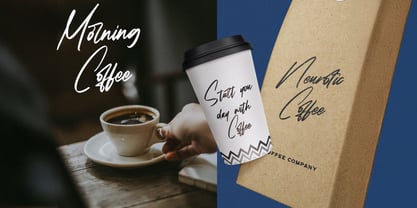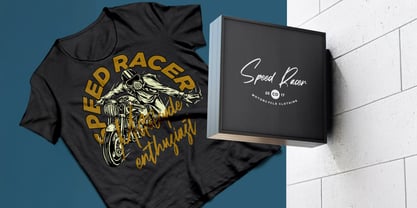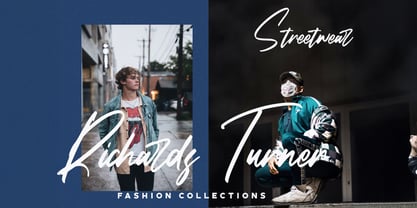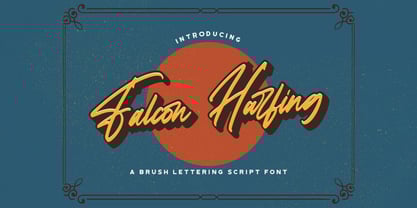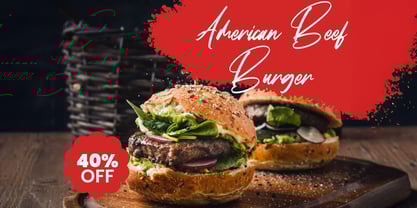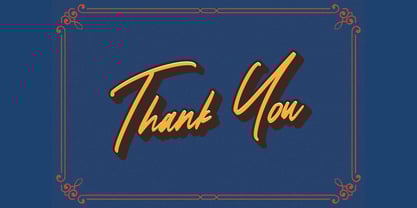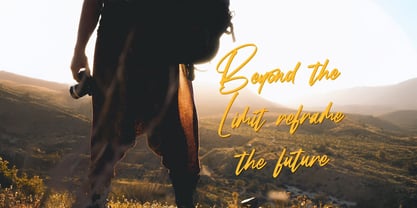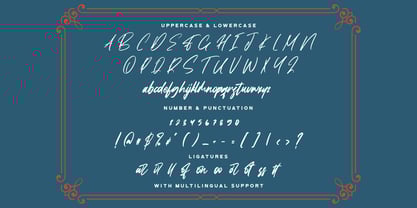
Falcon Harfing
by Stringlabs Creative Studio
The Falcon Harfing Font Family was designed by Virgiawan Listanto and published by Stringlabs Creative Studio. Falcon Harfing contains 1 styles. More about this family
Falcon Harfing is a commanding bold script font that combines robust strength with a dynamic, flowing elegance. Its powerful letterforms and confident curves are designed to make an undeniable impact, perfect for headlines, branding, apparel, and any design needing a strong, energetic presence.
Designers: Virgiawan Listanto
Foundry: Stringlabs Creative Studio